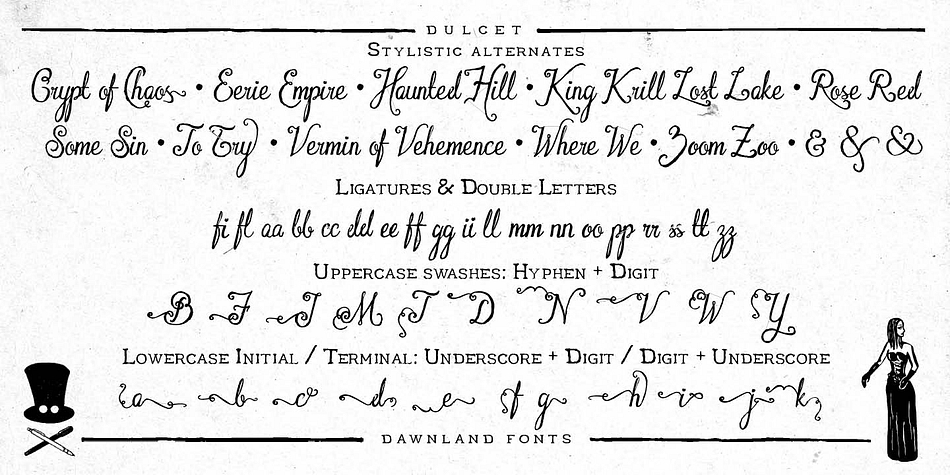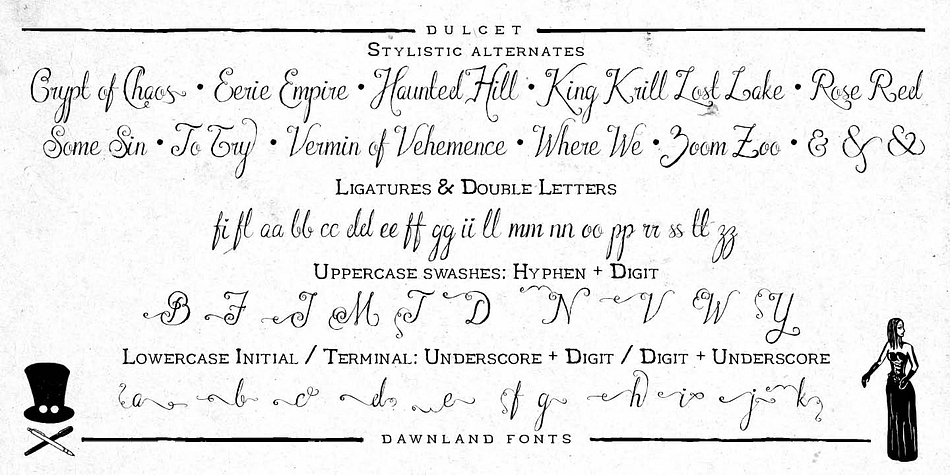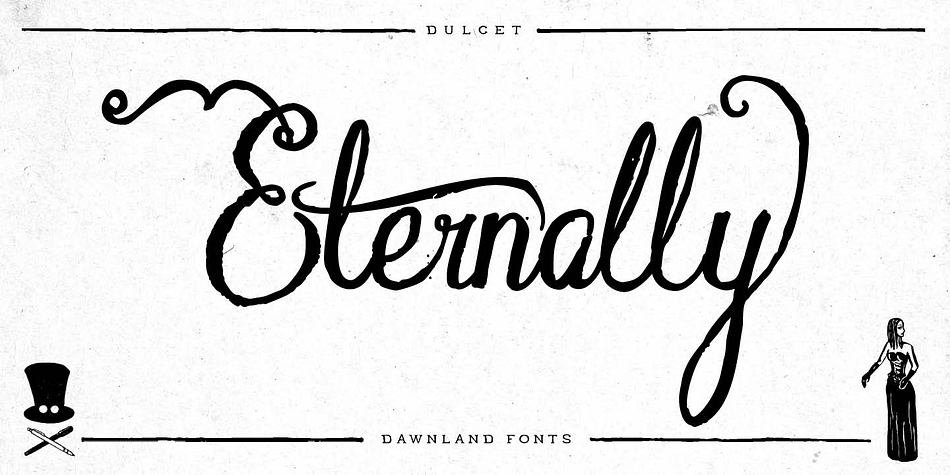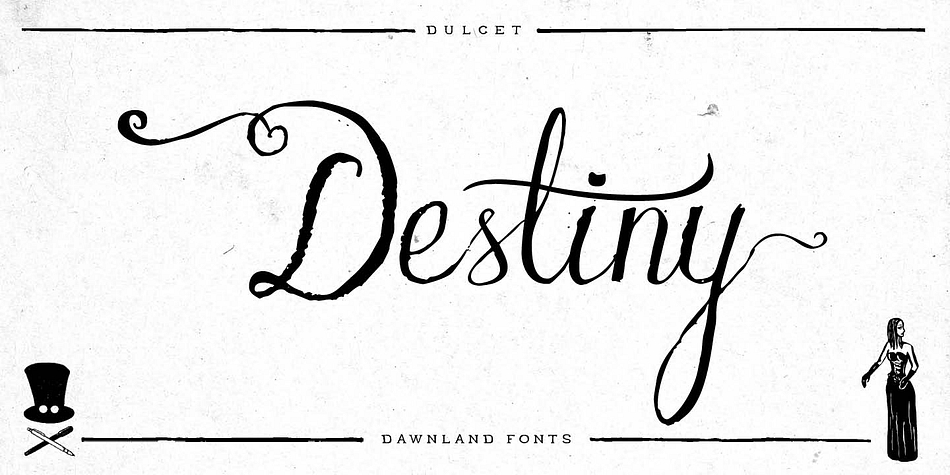
Dulcet is a script font family. This typeface has two styles and was published by Dawnland.
Dulcet is a hand lettered, rough, binding script with high ascenders & low-descenders. It is both elegant and grungy and will work wonders on your invitations or love letters, make beautiful posters, frightening t-shirt designs or logotypes.
It is equipped with OpenType features such as common ligatures, double letter ligatures, contextual and stylistic alternates for a varied and hand drawn look. Access alternates by using the glyph panel in Illustrator and InDesign.
Dulcet comes with several initial & terminal swashes that can be added to the beginning and/or end of any lowercase letter as well as different swashes for the upper case letters.
For initials/beginnings, write _ (underscore) + digit 0 to 9
For terminals/endings, write digit 0 to 9 + _ (underscore)
For start swashes, - (hyphen) + digit 0 to 9.